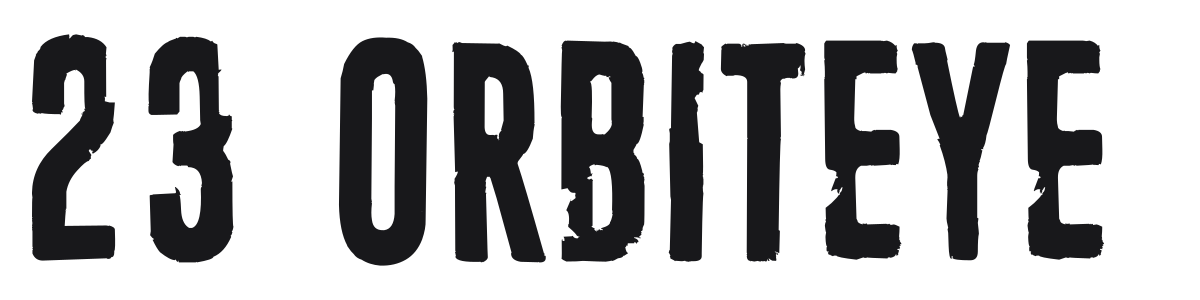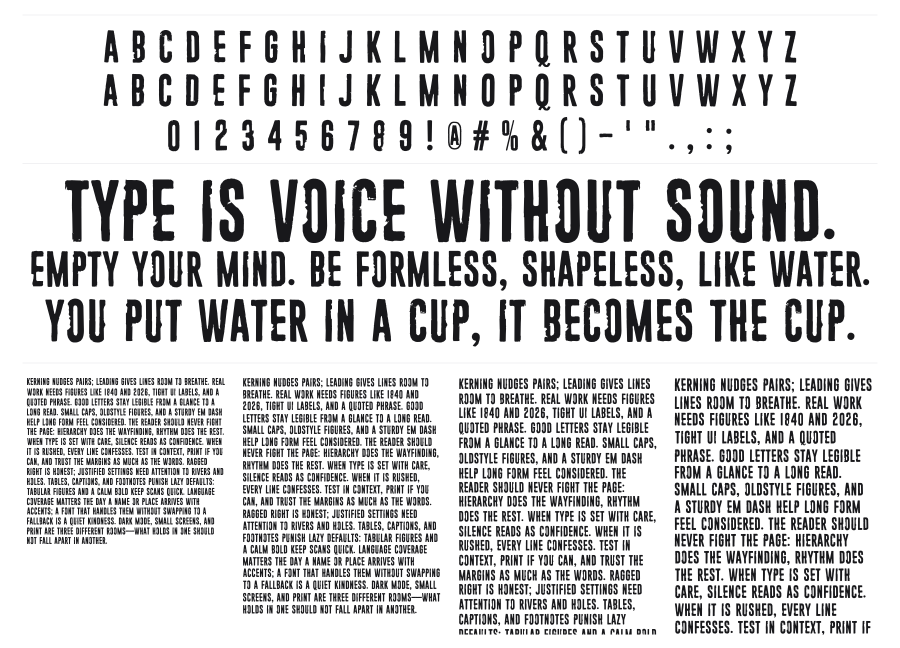
23 Orbiteye
23 Orbiteye is a tall condensed display face by junkohanhero, built from bold block letters eaten away by heavy distressing and texture. Every character carries a rough, hand-stamped quality, as if printed through a degraded stencil or aged rubber block. The relentless erosion gives it a raw, underground energy that suits band posters, game titles, and apparel graphics.